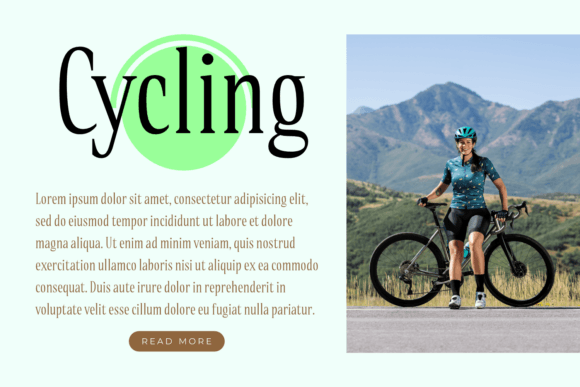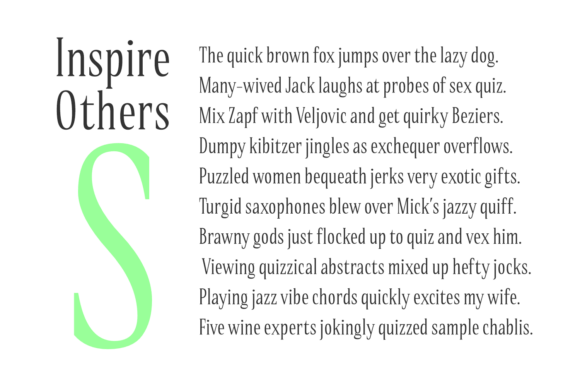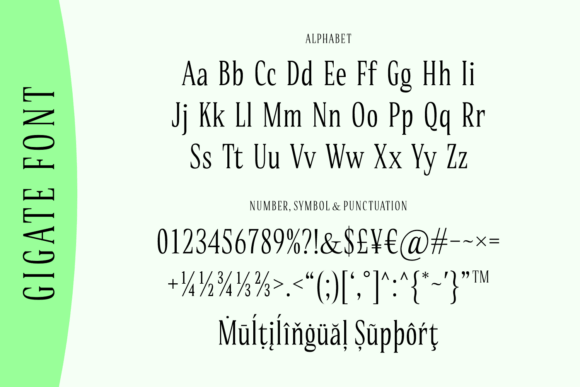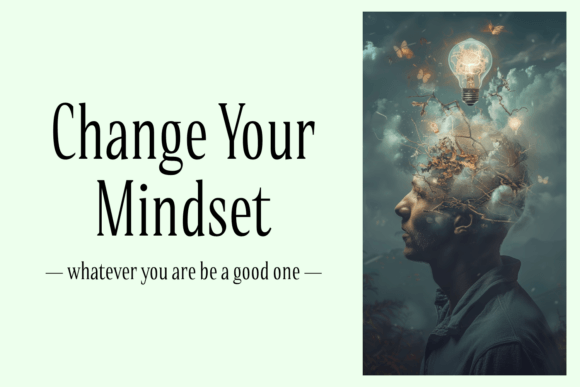
Introducing Gigate Font: The Perfect Blend of Classic Elegance and Modern Boldness
In the world of typography, fonts play a crucial role in conveying messages, expressing emotions, and creating a lasting impression. For designers, crafters, and marketers, selecting the right font can make all the difference in their creative projects. If you’re looking for a font that exudes classic elegance, modern boldness, and versatility, look no further than Gigate Font. In this article, we’ll dive into the world of Gigate Font, exploring its features, benefits, and uses.
What is Gigate Font?
Gigate is a serif font that boasts classic, elegant letters with small lines at the ends of each stroke. This distinctive feature gives Gigate a bold and modern look, making it easy to read and perfect for a variety of applications, including headlines, posters, and branding. The font’s design combines traditional style with a fresh twist, giving your text a strong presence that grabs attention.
Key Features of Gigate Font
- Classic Elegance: Gigate Font features classic, elegant letters that evoke a sense of sophistication and refinement.
- Modern Boldness: The font’s bold and modern look makes it perfect for headlines, titles, and other applications where you want to make a statement.
- Serif Design: Gigate’s serif design adds a touch of tradition and elegance to your text, making it suitable for a wide range of projects.
- Easy to Read: Despite its bold and modern look, Gigate Font is easy to read, even at smaller font sizes.
Benefits of Using Gigate Font
So, why should you choose Gigate Font for your next project? Here are just a few benefits of using this versatile font:
- Versatility: Gigate Font is suitable for a wide range of projects, from headlines and posters to branding and advertising.
- Unique Style: The font’s distinctive style sets it apart from other serif fonts, giving your text a unique and memorable look.
- Easy to Pair: Gigate Font pairs well with a variety of other fonts, making it easy to create harmonious and visually appealing typography.
- High-Quality Design: Gigate Font is designed with high-quality craftsmanship, ensuring that your text looks professional and polished.
Uses of Gigate Font
Gigate Font is a versatile font that can be used in a variety of applications, including:
- Headlines and Titles: Use Gigate Font to create bold and eye-catching headlines and titles that grab attention.
- Posters and Flyers: The font’s bold and modern look makes it perfect for posters and flyers that need to stand out.
- Branding and Advertising: Gigate Font is suitable for branding and advertising projects, where a strong and memorable visual identity is crucial.
- Packaging and Labels: Use Gigate Font to create eye-catching packaging and labels that showcase your product or service.
Tips for Using Gigate Font
To get the most out of Gigate Font, here are a few tips to keep in mind:
- Use it Boldly: Gigate Font is designed to make a statement, so don’t be afraid to use it boldly and prominently.
- Experiment with Colors: The font’s bold and modern look lends itself well to a variety of colors and color schemes.
- Pair it with Other Fonts: Gigate Font pairs well with a variety of other fonts, so don’t be afraid to experiment with different typography combinations.
In conclusion, Gigate Font is a versatile and stylish font that offers a unique blend of classic elegance and modern boldness. With its easy-to-read design, bold and modern look, and high-quality craftsmanship, Gigate Font is perfect for designers, crafters, and marketers looking to make a statement with their typography. Whether you’re working on a headline, poster, or branding project, Gigate Font is sure to deliver.